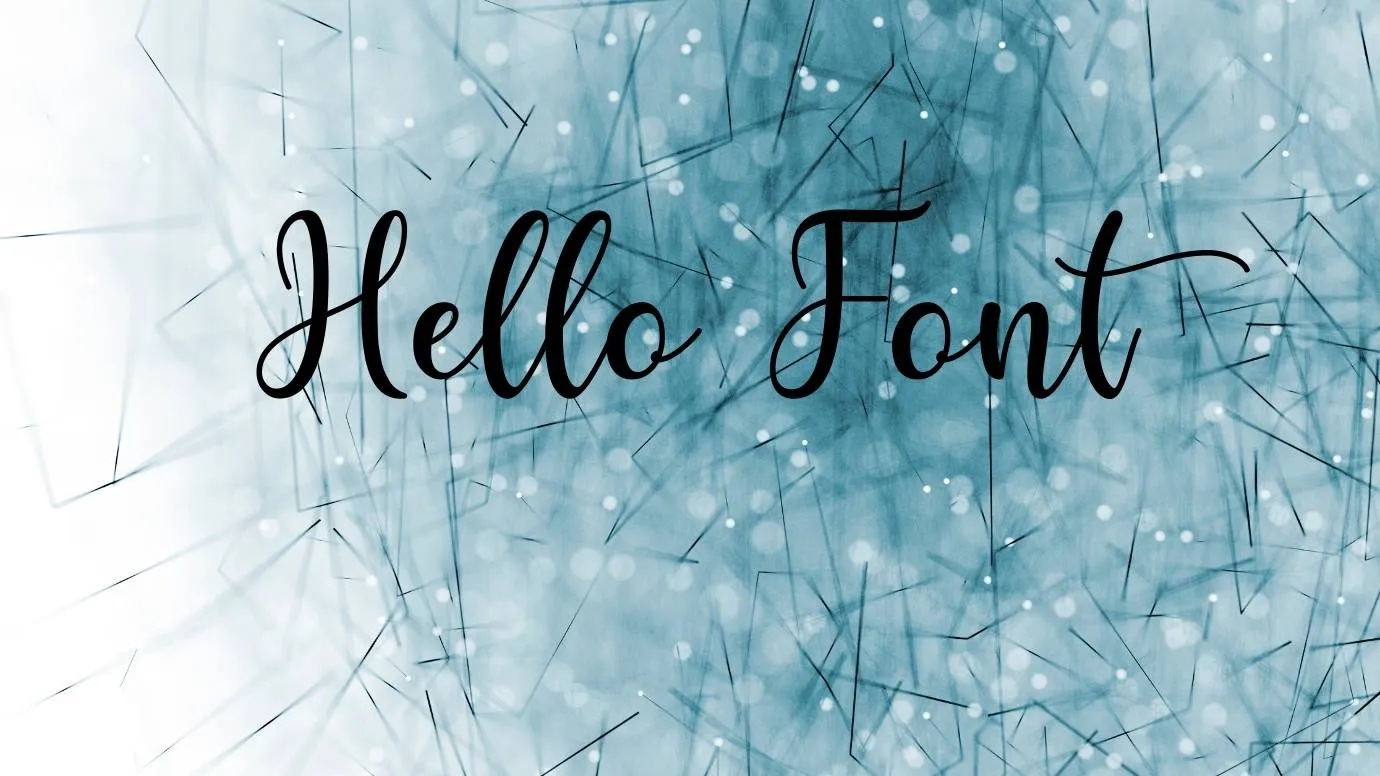
Hello Font Family is a calligraphy typeface that has an attractive and beautiful appearance. This gorgeous typeface was released by Graphix Line Studio. This font has bold and stylish swashes that help you for creating new designs.
This font has unique and astonishing glyphs. It gives the free facility of its copy and pastes function. The tails mermaid font is the best for pairing with this typeface.